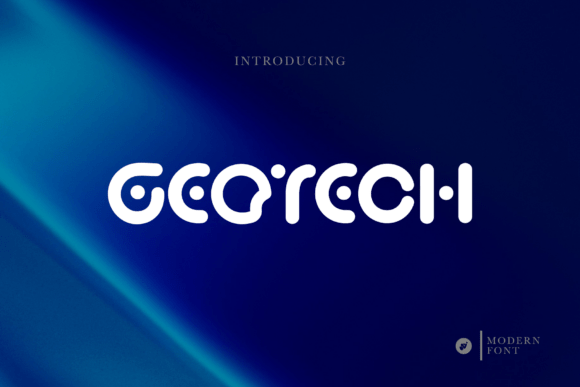
The Future of Design is Here: Geotech Font
As designers, we’ve all been there – staring at a blank canvas, trying to bring our ideas to life. It’s that moment of creative frustration when you need a spark to ignite your imagination. For me, it was a late-night brainstorming session, surrounded by scribbled notes and half-finished prototypes. I wanted my design to scream “innovation” and “futurism,” but the words just weren’t translating onto the page. That’s when I stumbled upon Geotech Font, a modern, minimalist technology font that would change everything.
Geotech Font is designed to convey a sense of cutting-edge innovation, perfect for designers who want to create a futuristic and clean impression. With its sleek lines and precise typography, it’s an ideal choice for any design project that needs to make a statement. Whether you’re working on a tech startup’s website, a sci-fi movie poster, or a futuristic product design, Geotech Font is the perfect tool to help you achieve your vision.
Geotech Font Key Features
- Font Family: Geotech Font is a sans-serif font family designed for technical and scientific applications, making it ideal for use in geology, engineering, and other related fields.
- Font Size: Geotech Font comes in multiple weights and styles, including Thin, Light, Regular, Medium, Bold, and Black, with corresponding font sizes ranging from 8 to 72 points.
- Unique Characteristics: Geotech Font features a unique blend of modern and technical elements, with clean lines, precise shapes, and a high level of legibility, making it well-suited for technical documentation and presentations.
Geotech Font Review
Geotech Font is a unique sans-serif font designed to evoke a sense of industrial modernity. It’s a solid addition to any designer’s toolkit, but like any font, it’s not without its limitations.
- Modern aesthetic: Geotech Font has a sleek, modern feel that’s perfect for projects that require a contemporary edge.
- High legibility: The font’s clean lines and open design make it easy to read, even at smaller font sizes.
- Versatility: Geotech Font can be used for a wide range of projects, from corporate branding to tech startups.
- Lack of expressiveness: Geotech Font is a very straightforward font that may not be the best choice for projects that require a lot of personality or flair.
- Limited stylistic variation: The font’s design is very consistent, which may make it feel a bit monotonous for longer blocks of text.
Overall, Geotech Font is a solid choice for designers who need a modern, industrial-looking font. While it may not be the best choice for every project, it’s a great addition to any designer’s toolkit.
Tips for Getting the Most Out of Geotech Font
Geotech Font is commonly used in:
- Engineering
Alternatives to Geotech Font